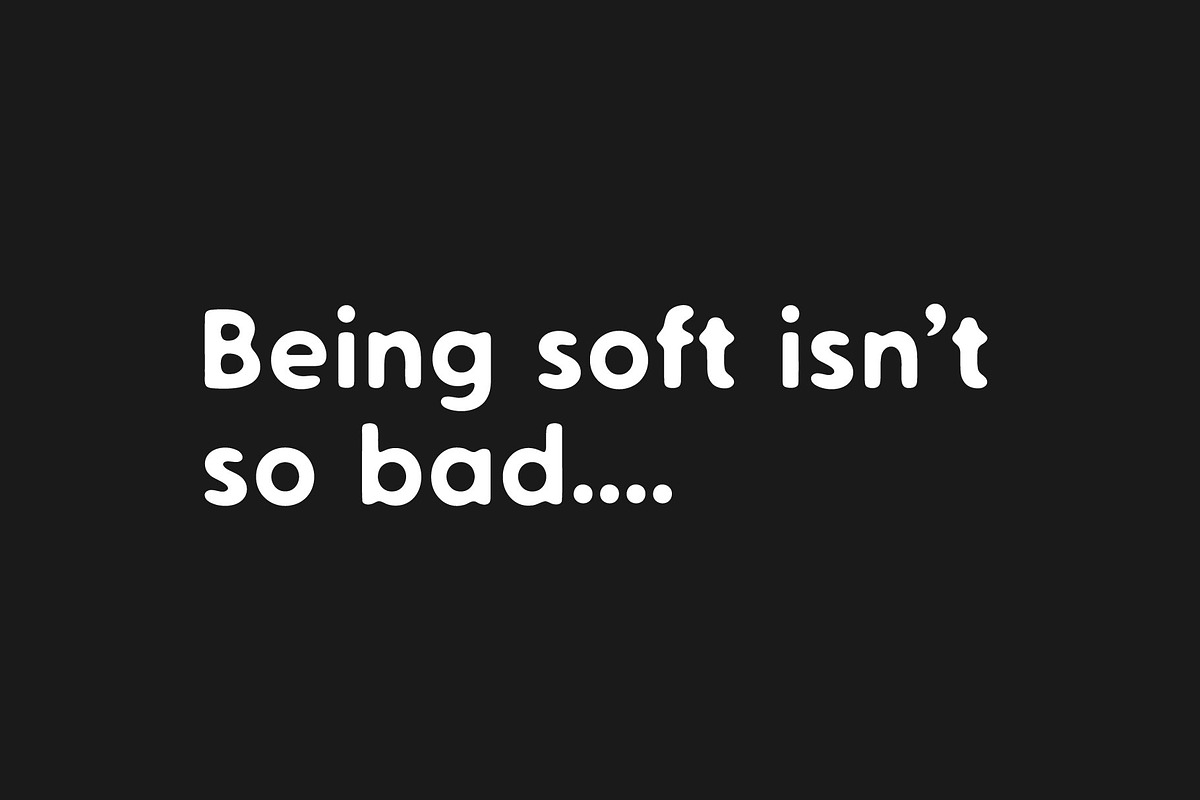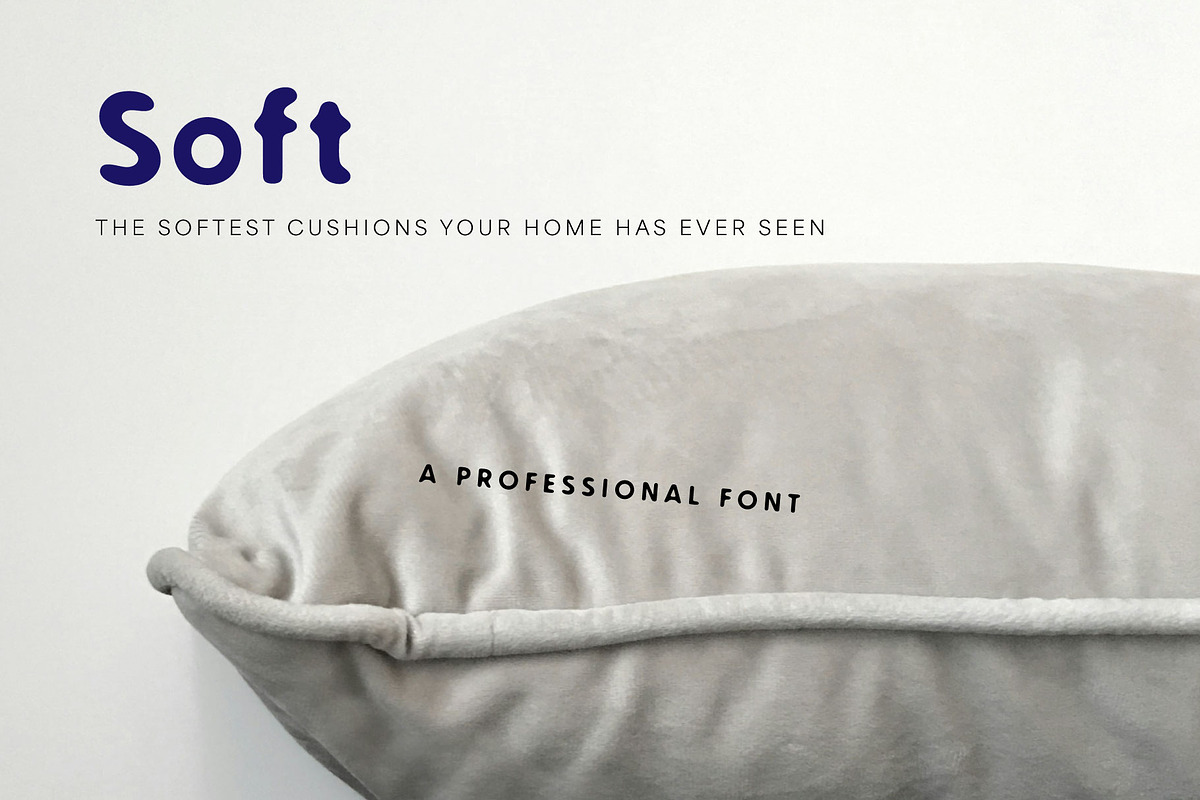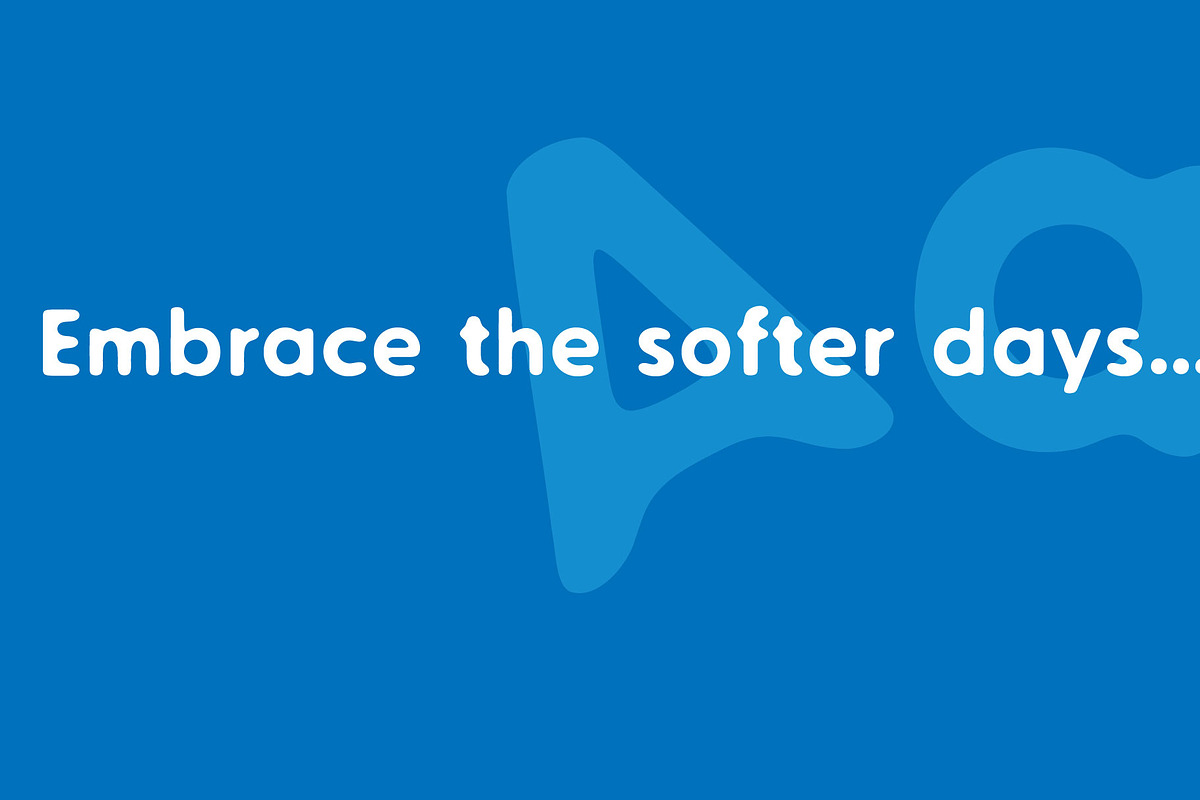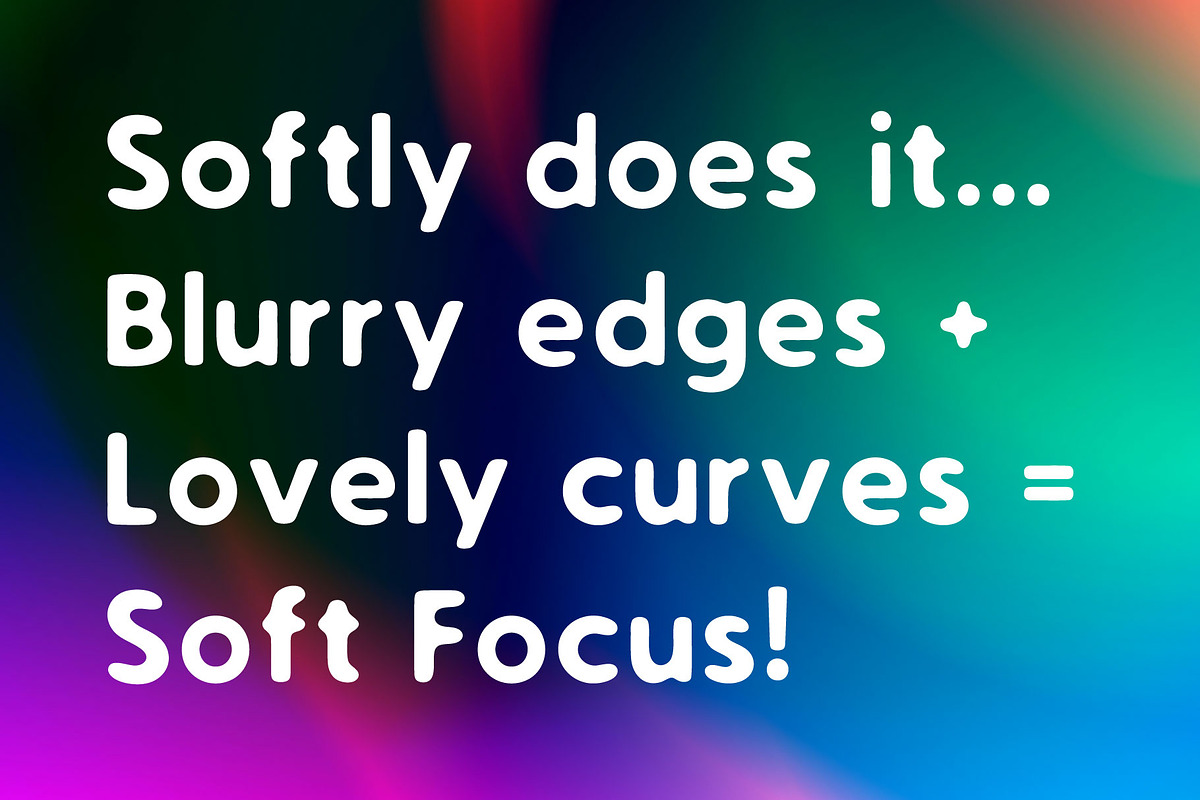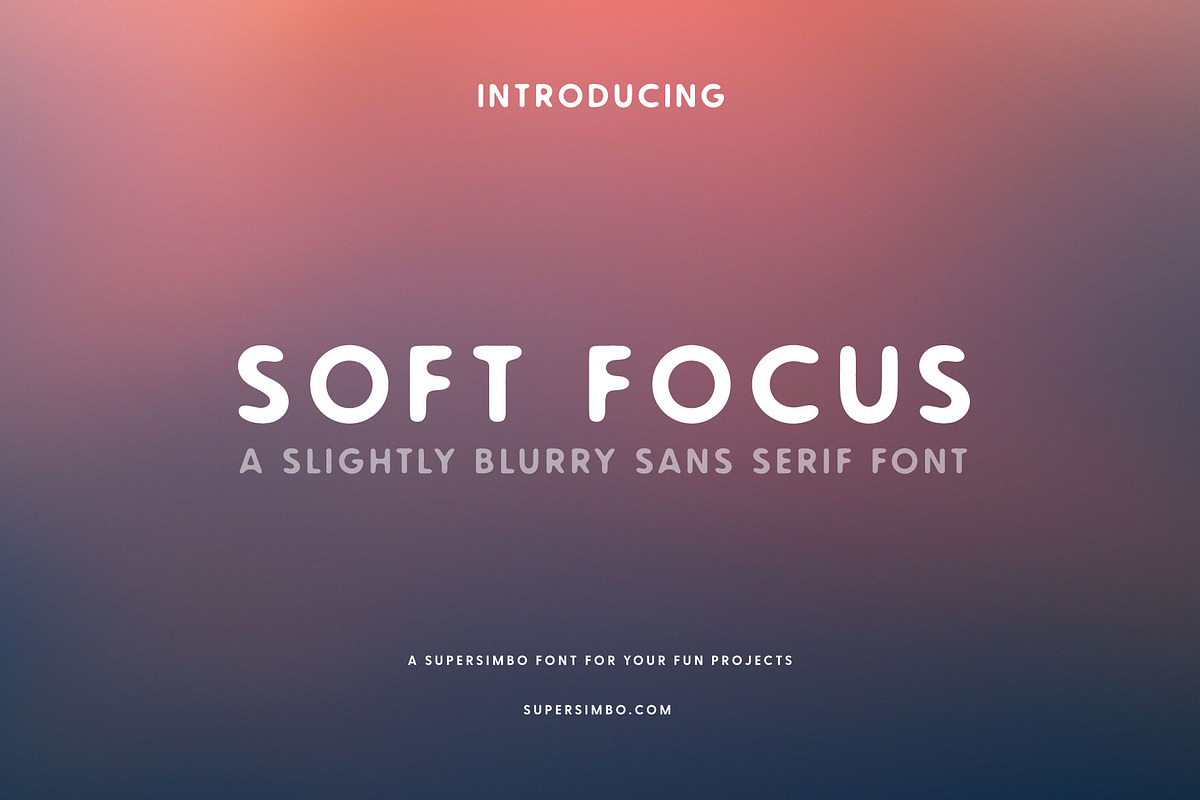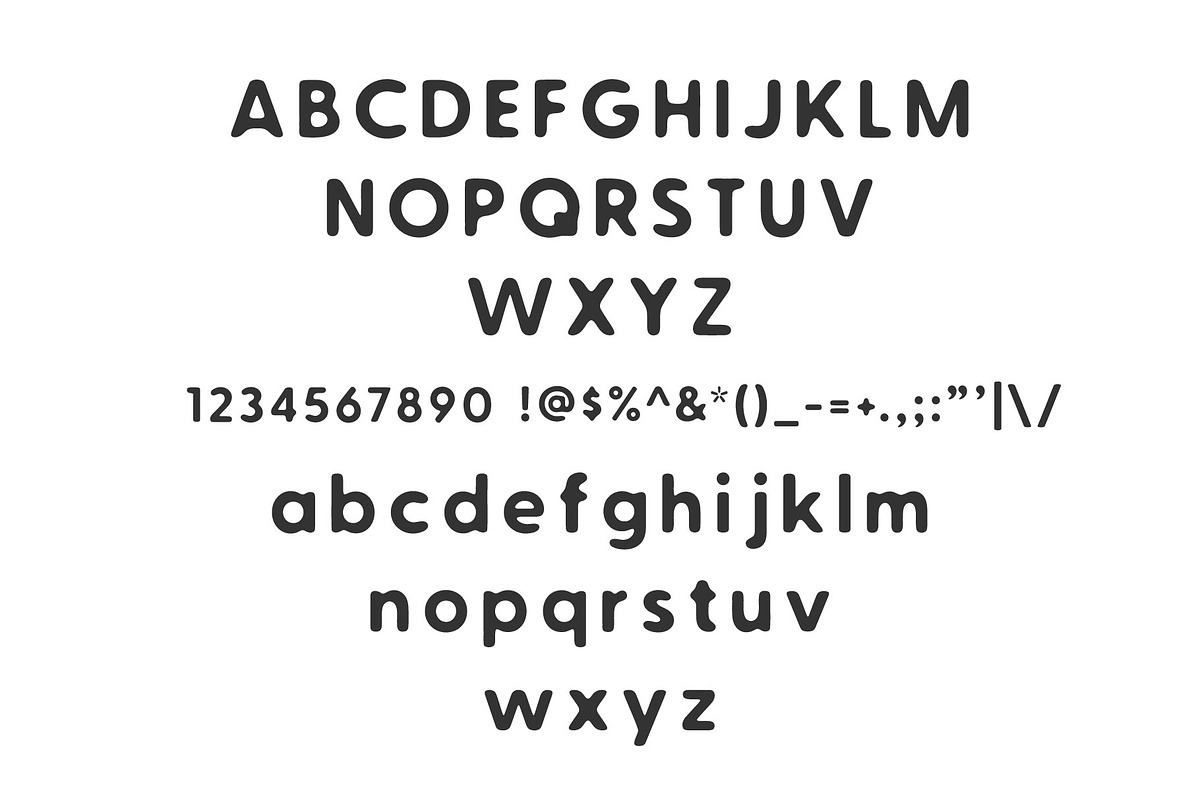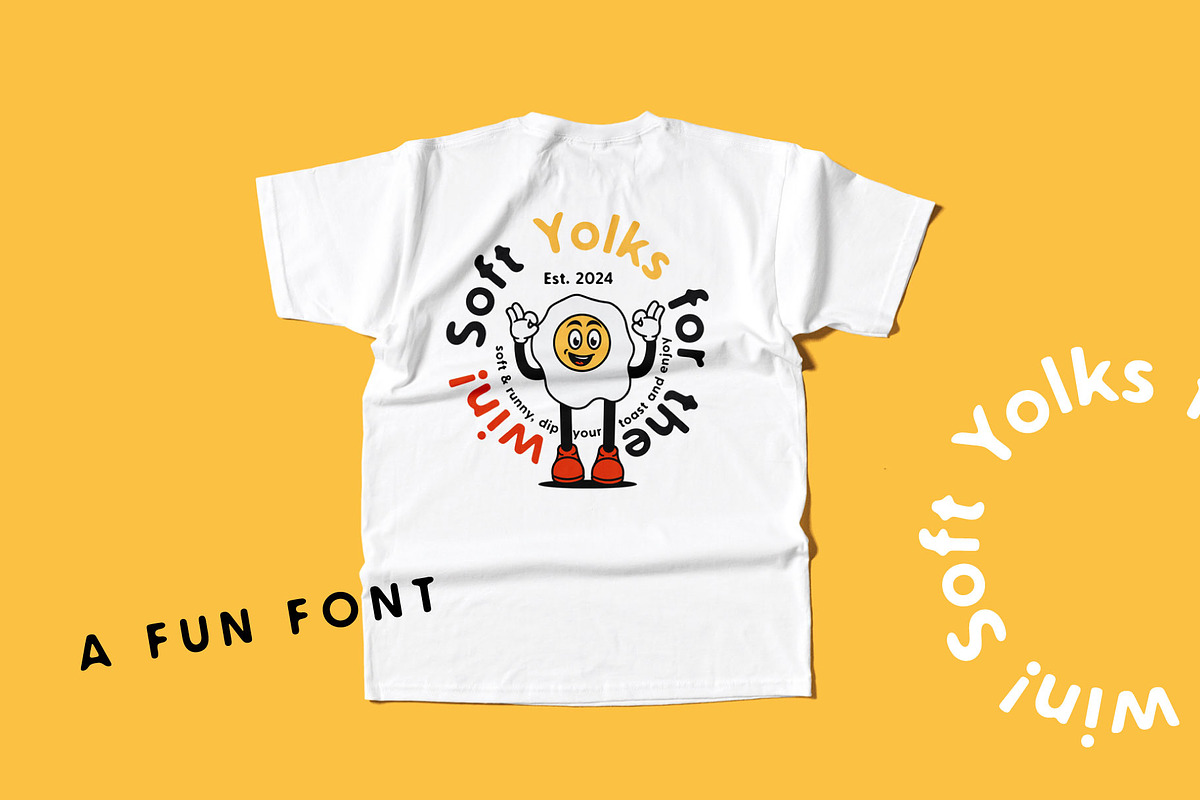
Soft Focus | Sans Serif Font
What's so good about being hard anyway? Soft Focus is a slightly blurry sans serif font for fun or professional use. It's lovely curves and blurry edges are waiting for you, like a soft cushion or a soft egg yolk... lean into it, dip your toast... embrace the softer days.
Soft Focus is a san serif font designed by Ally Simpson, a supersimbo font for your fun projects.